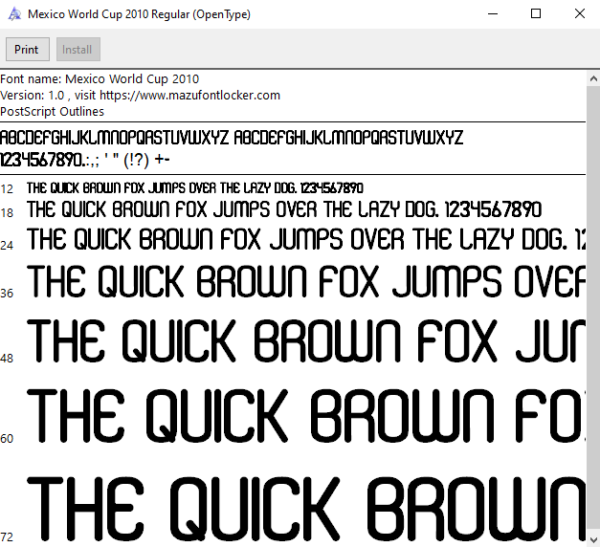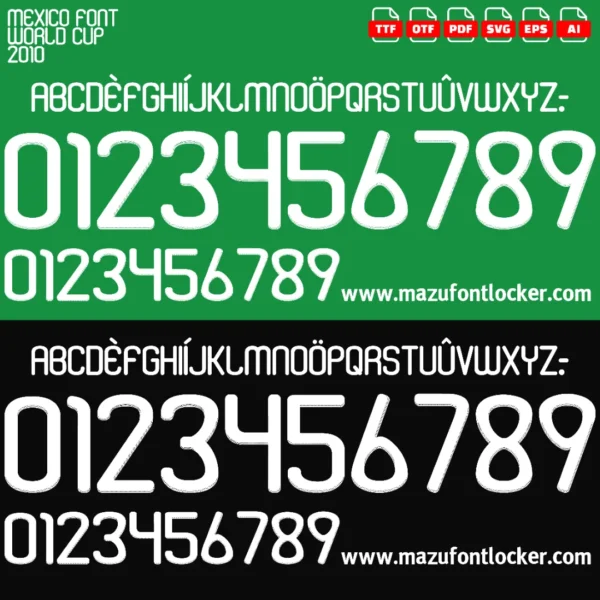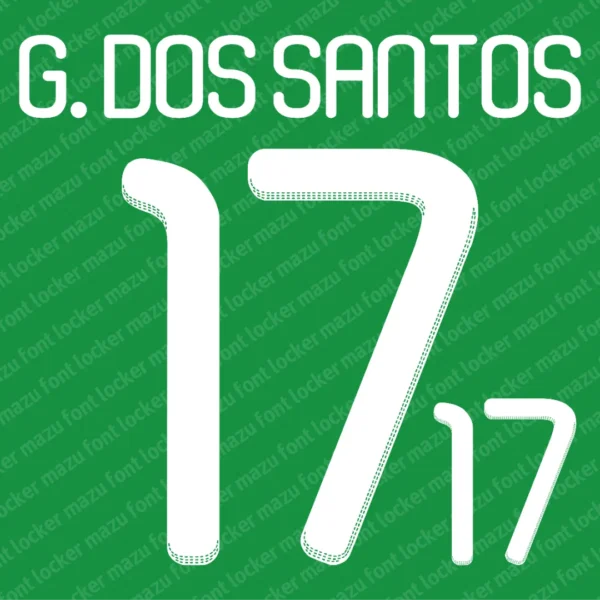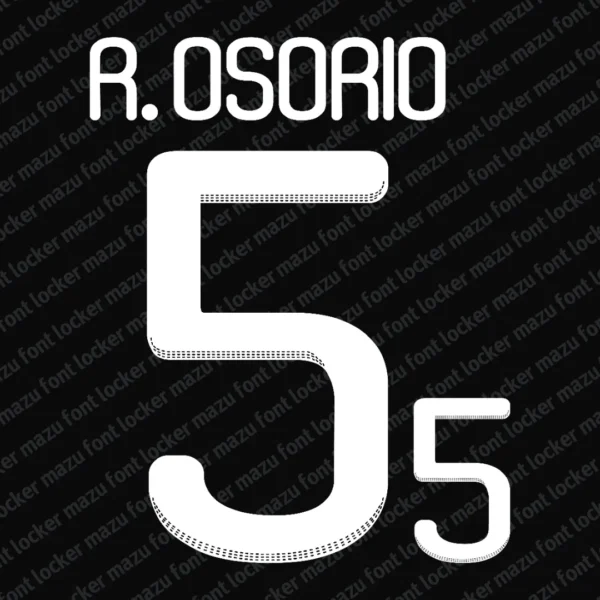
Mexico World Cup 2010 Font Vector – Legendary El Tri Passion Masterpiece
This premium font captures the bold, fierce, and championship-driven typography that perfectly embodies the spirit of El Tri — delivering pure Mexican fire, relentless ambition, warrior-like determination, attacking flair, and the legendary football culture that turned Mexico into one of the most passionate and dangerous teams in world football.
Mexico World Cup 2010 Font Vector – Stunning El Tri Passionate Typeface
The Mexico World Cup 2010 Font Vector is a premium typeface that accurately recreates the official match lettering worn by the Mexico national team during the 2010 FIFA World Cup in South Africa. This high-quality vector font kit captures the bold, vibrant, and passionate typography that defines one of the most memorable campaigns for El Tri.
This font stands out thanks to its faithful recreation of the official shirt lettering used by Mexico during the 2010 World Cup. Every character has been carefully crafted to match the authentic player names and numbers seen on the pitch. Whether you are designing realistic kit concepts or creating football-themed artwork, the Mexico World Cup 2010 Font Vector delivers professional-quality authenticity.
The letterforms feature a clean, athletic, and powerful design that reflects Mexico’s legendary status and the fiery passion of their fans. The balanced proportions and sharp detailing provide excellent readability while maintaining the vibrant Mexican identity.
The numerals are bold, modern, and highly recognizable, closely matching the official squad numbers used throughout the 2010 World Cup. The vector format ensures perfect scalability for both digital and print applications.
• Complete uppercase A–Z and numbers 0–9 in authentic Mexico World Cup 2010 style
The Mexico World Cup 2010 Font Vector is an independently designed typeface package created to replicate the official shirt lettering style used by Mexico during the 2010 World Cup. It is ideal for retro football projects, jersey customization, fan artwork, historical recreations, and sports design work.